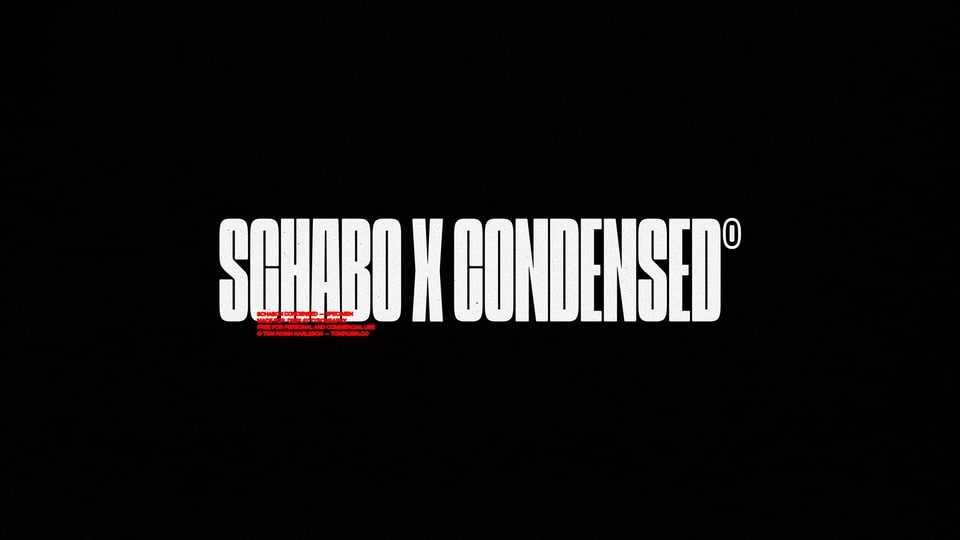
Download Schabo X Condensed font, a bold and strong condensed sans serif typeface that commands attention with its sharp lines and compact design. The font is designed to exude power and confidence, making it perfect for headlines, titles, and impactful branding materials.
Designer: Tom Robin Karlsson